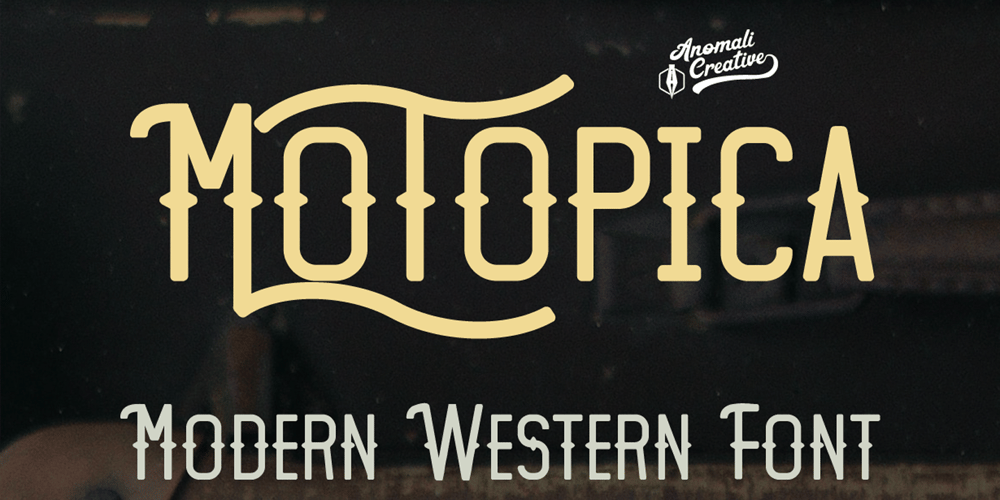
Motopica Font Family was designed by A A Ngurah A Krisna Teja and published by Anomali Creative. Motopica contains 4 styles and family package options. Motopica was born when I watched a show, namely “the pickers”. At that time I realized that there were still many communities or people who really loved Western culture (Cowboy), Vintage Style in the 40s – 60s era and Classic Motorbike style (Caferacer).So I intend to combine these three concepts into a single font, and Motopica was born, which brings the spirit of the three styles, namely Western Cowboy, Vintage, Beer and motorbike.Motopica can be used as a Vintage Poster, Vintage Signage, Vintage badgeWhat’s Included Motopica Reguler Motopica Italic Motopica College Motopica Bold How to install your new fontThis font can be used with all software that can read standard fonts.Check out my instagram for update:https://www.instagram.com/anomalikreatif/Thanks so much for checking out my shop!All the best,Krisna